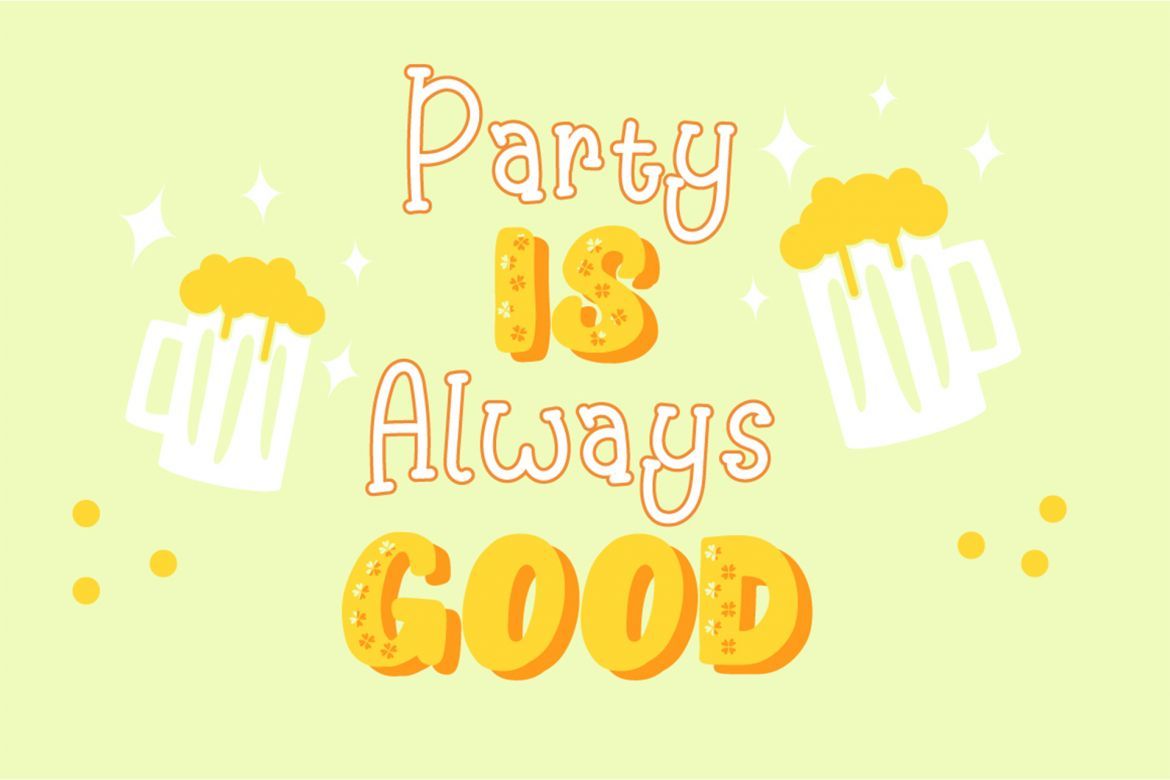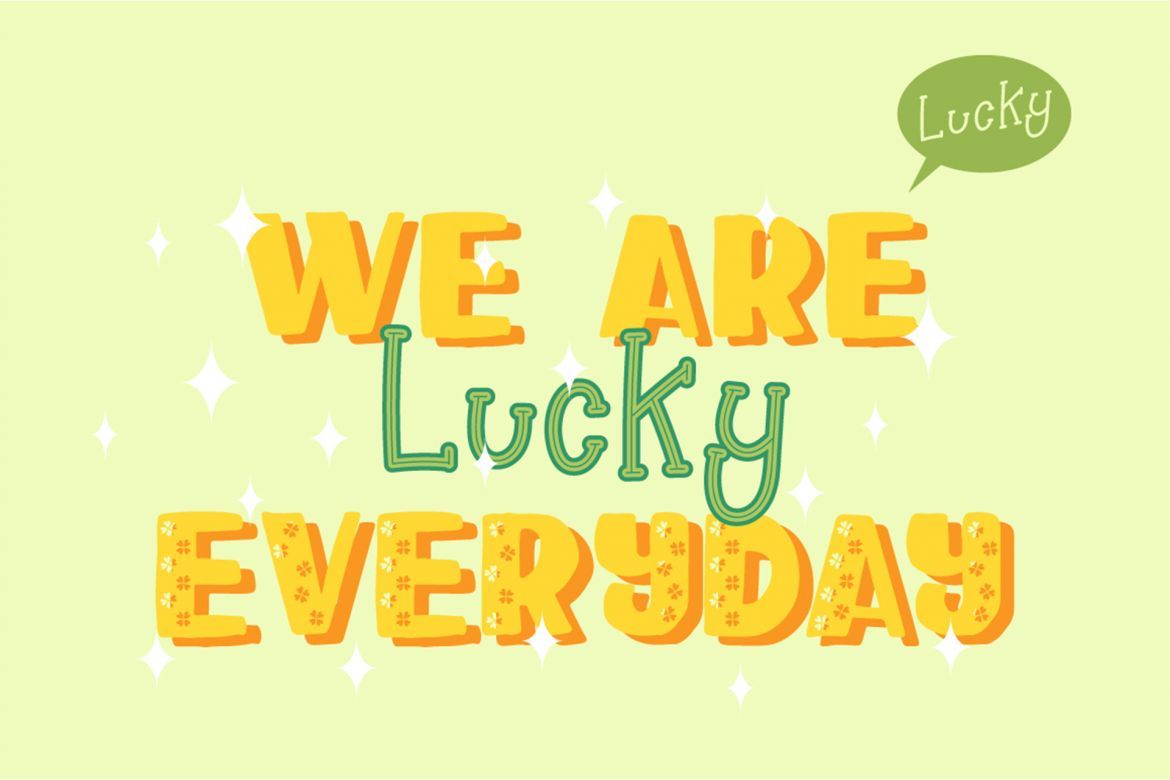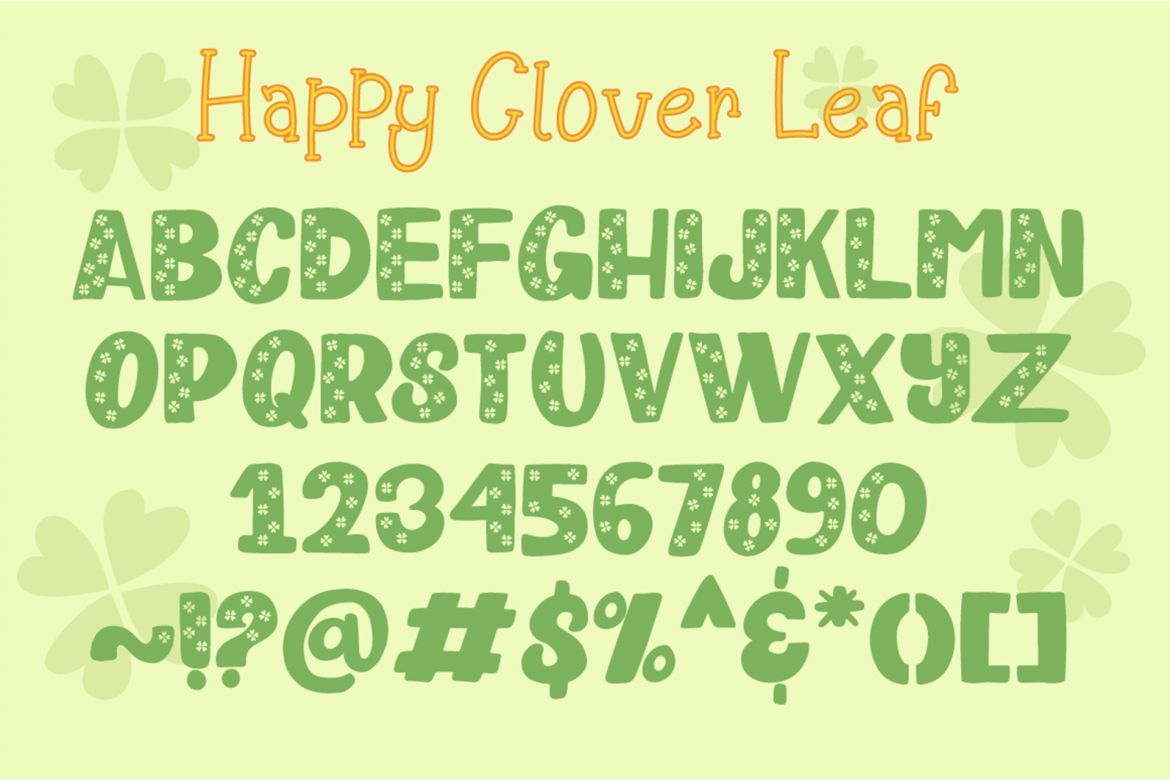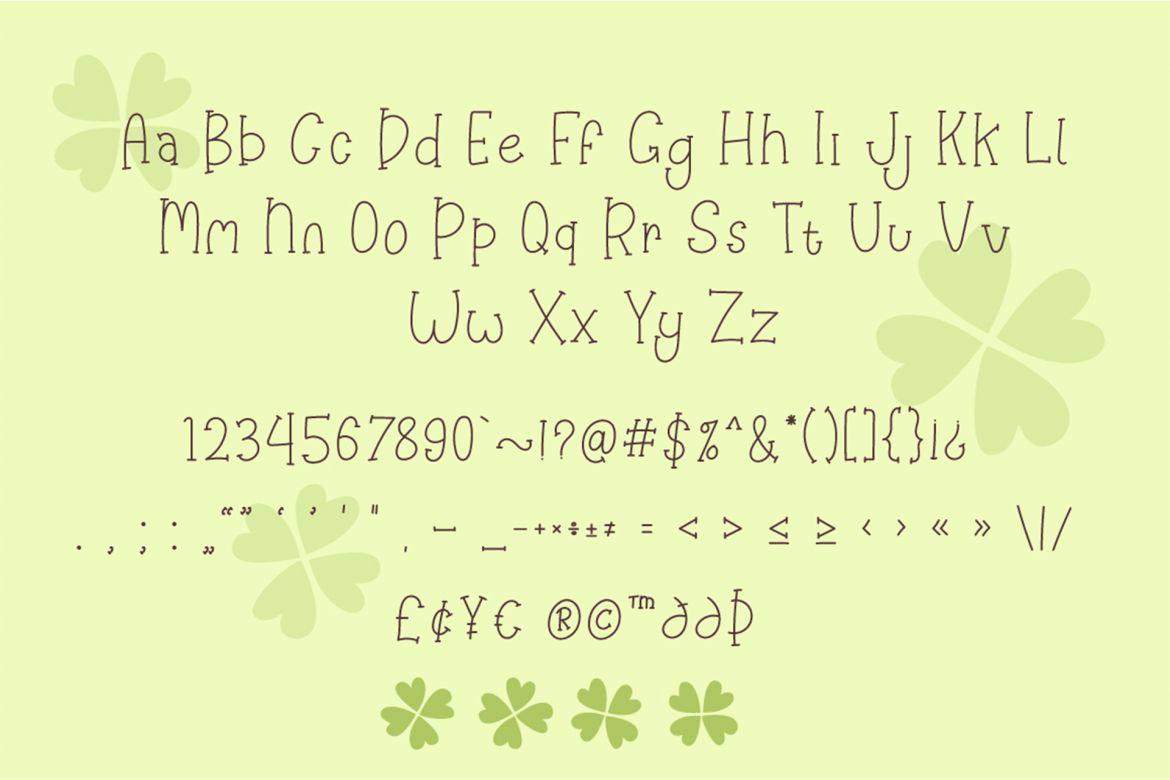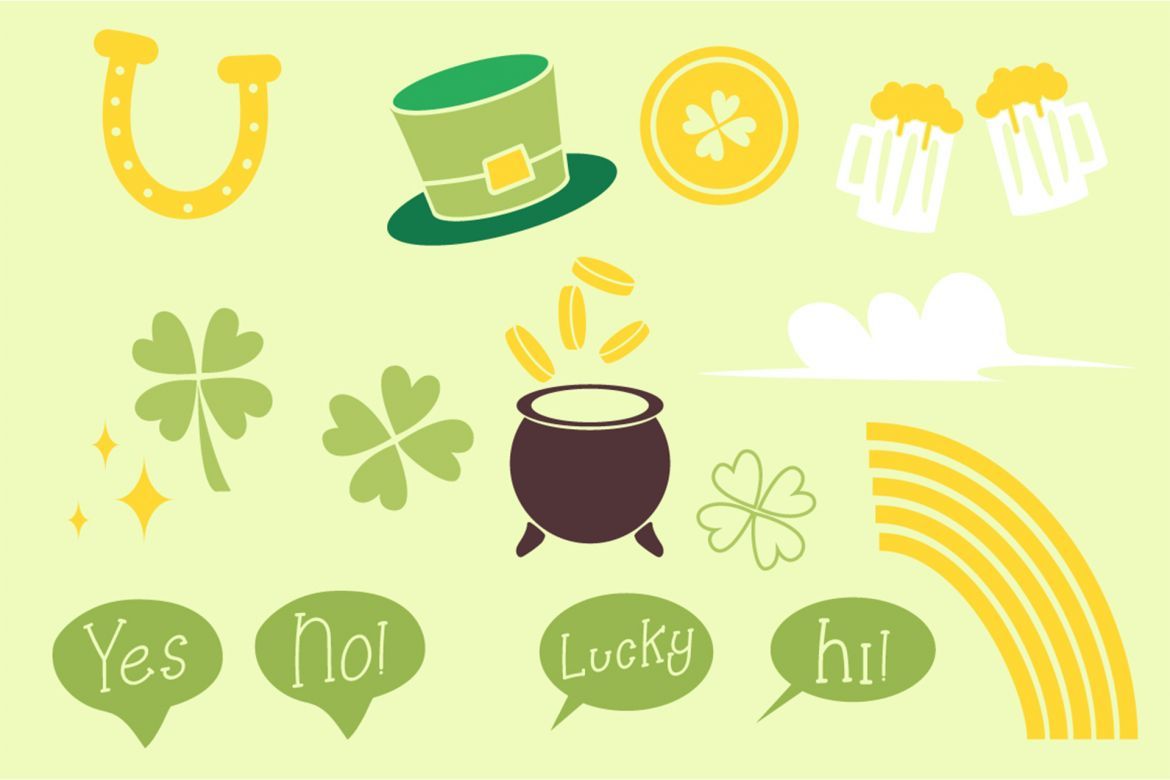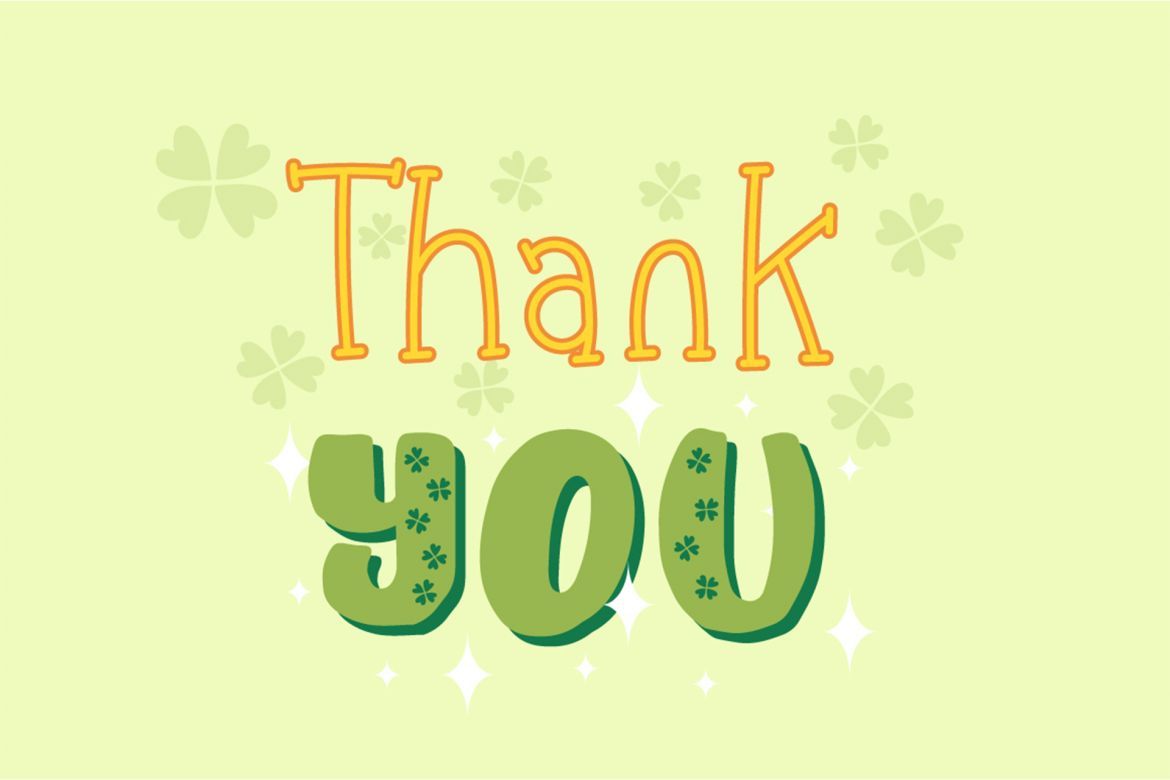
Happy Clover Font Duo
Say Hello to Happy Clover font duo!! An adorable font duo that combines slab serif, bold caps and patterned letters! Also included a set of St. patrick doddle in .ai & .eps